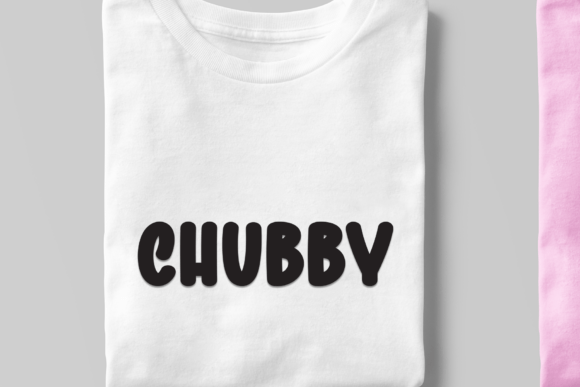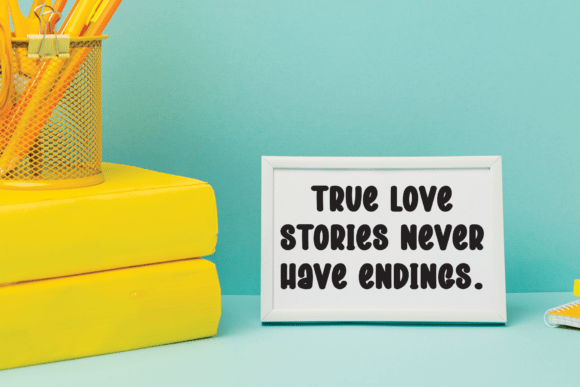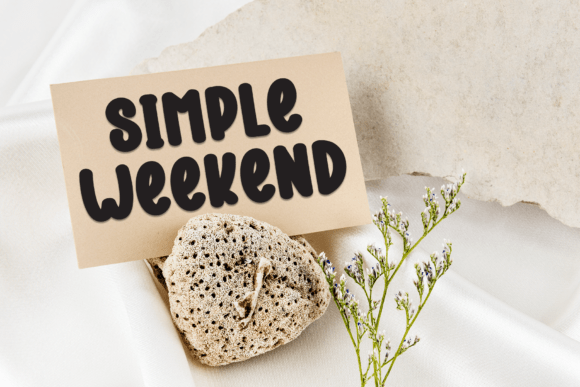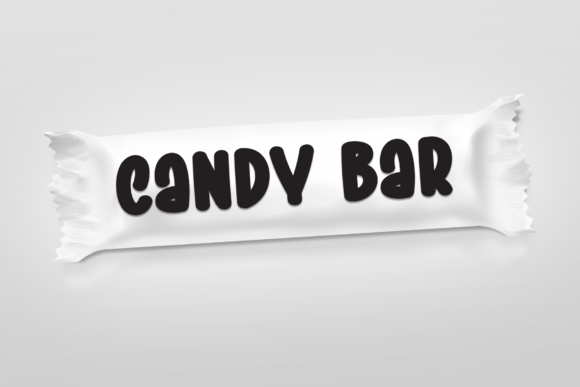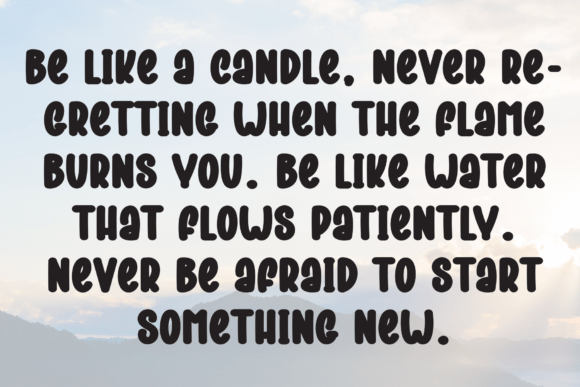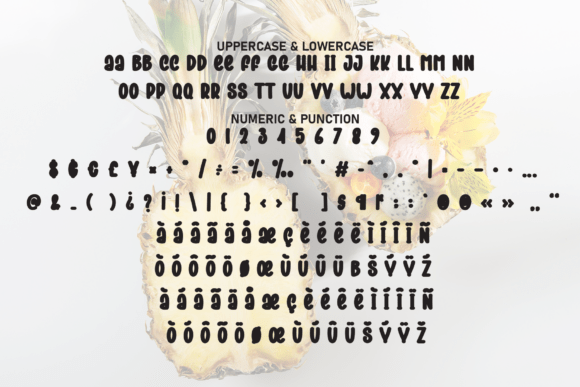
Easter Pineapple Font: Elevate Your Designs with a Touch of Whimsy
Are you tired of using the same old fonts for your designs? Look no further! Introducing the Easter Pineapple Font, a unique and creative addition to your typography collection. This charming font is perfect for designers and crafters seeking to add a touch of whimsy to their projects. In this article, we’ll explore the features and benefits of the Easter Pineapple Font, and how it can elevate your designs to the next level.
A Font that Stands Out from the Crowd
The Easter Pineapple Font is a one-of-a-kind typeface that exudes a sense of playfulness and fun. Its distinctive style is sure to grab attention and leave a lasting impression on your audience. Whether you’re designing for Easter, a spring-themed project, or simply want to add some personality to your work, this font is the perfect choice. The Easter Pineapple Font is versatile and can be used for a wide range of applications, including wall displays, wedding invitations, social media post logos, advertisements, product packaging, product designs, labels, photography, watermarks, invitations, stationery, and any project that requires tasteful handwriting.
Unlock Endless Creative Possibilities
The Easter Pineapple Font offers a world of creative possibilities, limited only by your imagination. Here are some ideas to get you started:
- Wedding invitations: Add a touch of whimsy and romance to your wedding stationery with this charming font.
- Social media graphics: Stand out on social media with eye-catching graphics and logos created using the Easter Pineapple Font.
- Product packaging: Elevate your product packaging with a unique and memorable font that reflects your brand’s personality.
- Wall art: Create stunning wall displays and art pieces using the Easter Pineapple Font.
- Photography: Add a touch of elegance to your photography with custom watermarks and overlays created using this font.
Why Choose the Easter Pineapple Font?
With so many fonts available, why choose the Easter Pineapple Font? Here are just a few reasons:
- Unique style: The Easter Pineapple Font boasts a distinctive style that will set your designs apart from the crowd.
- Versatility: This font is suitable for a wide range of projects and applications, making it a valuable addition to your typography collection.
In conclusion, the Easter Pineapple Font is a must-have for designers and crafters seeking to add a touch of whimsy and personality to their projects. With its unique style, versatility, and ease of use, this font is perfect for a wide range of applications. Whether you’re designing for Easter, a spring-themed project, or simply want to elevate your typography, the Easter Pineapple Font is an excellent choice. So why wait? Get your hands on this amazing font today and unlock a world of creative possibilities!